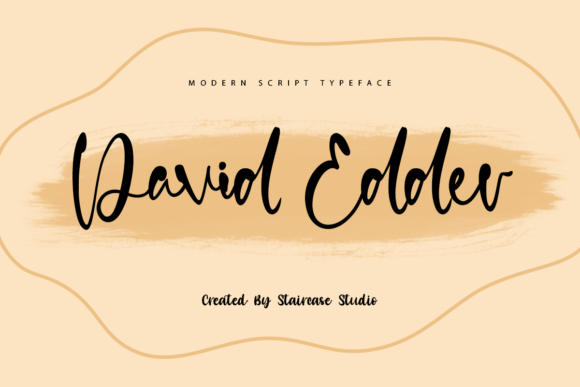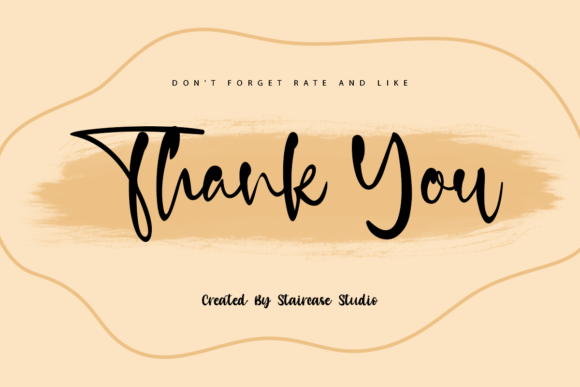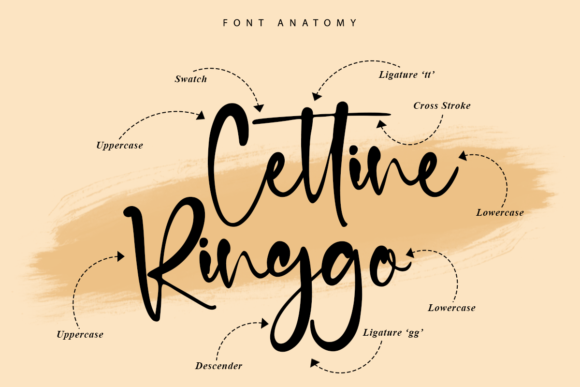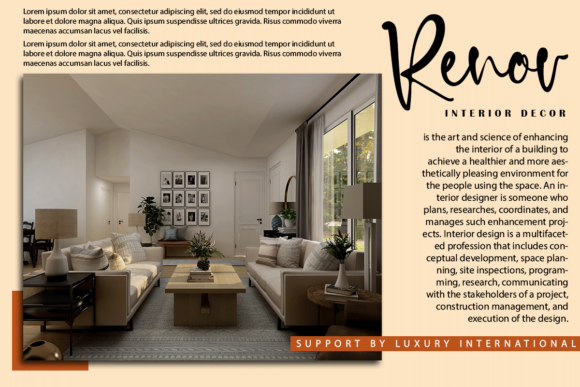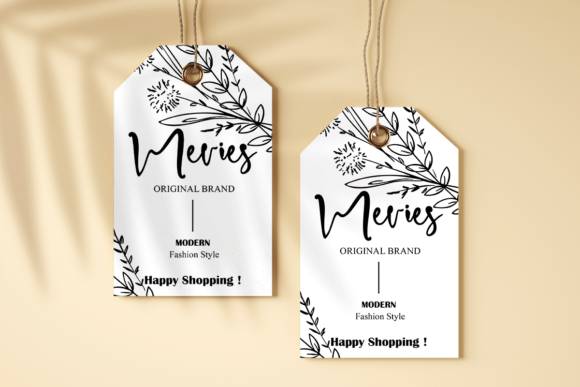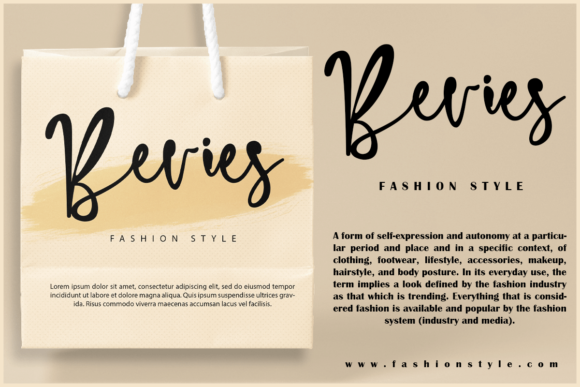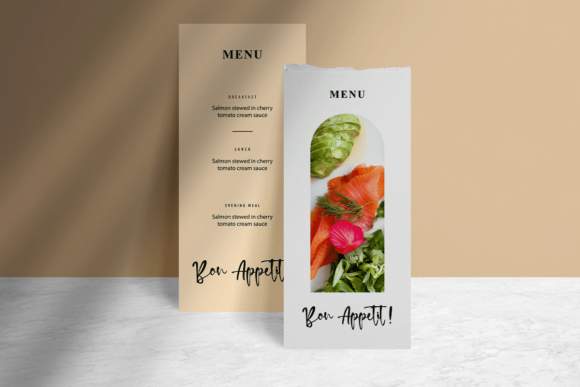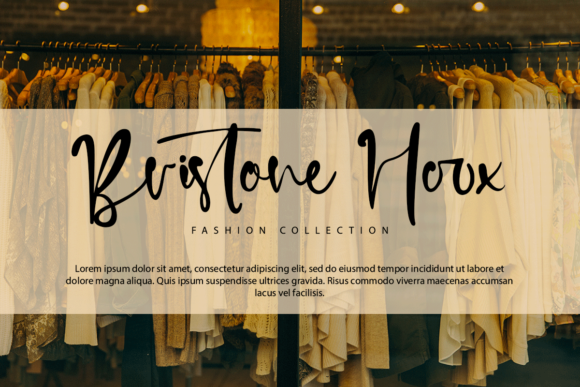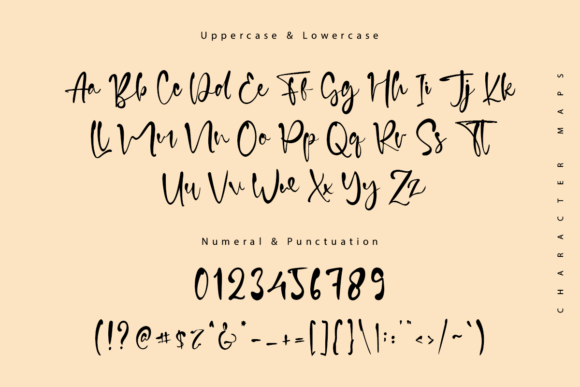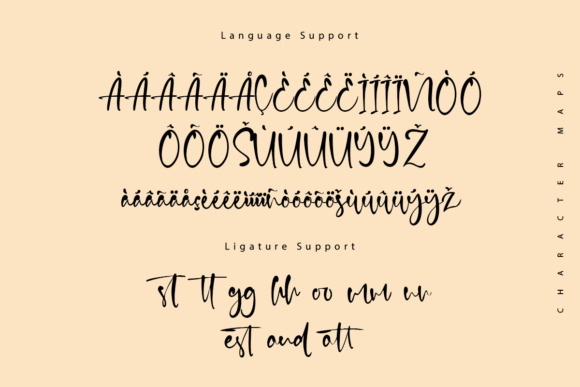
David Edder Font
About David Edder Font
David Edder is a trendy handwritten font. It is the best choice for creating eye catching logos, branding and quotes. Every letter has a unique and beautiful touch, which will make your design come alive!